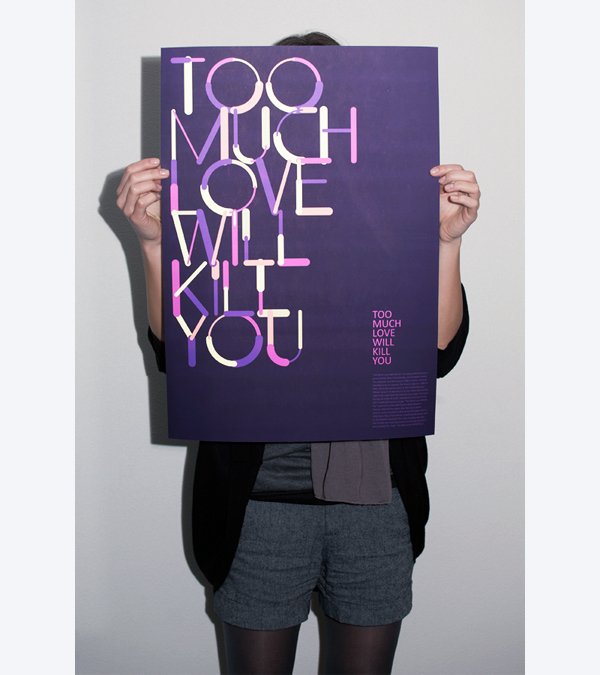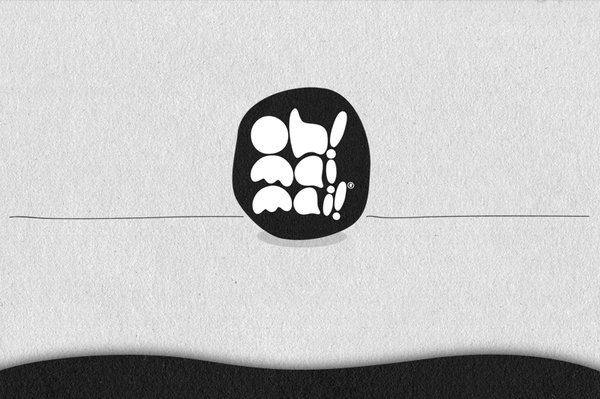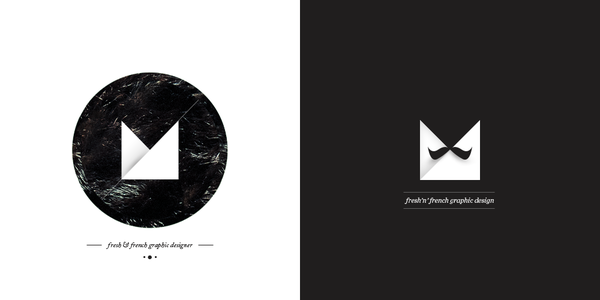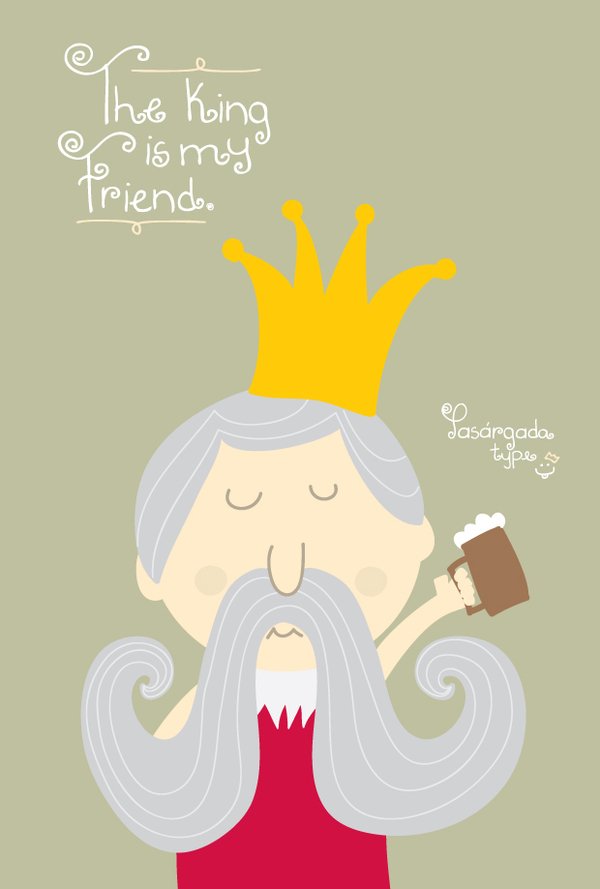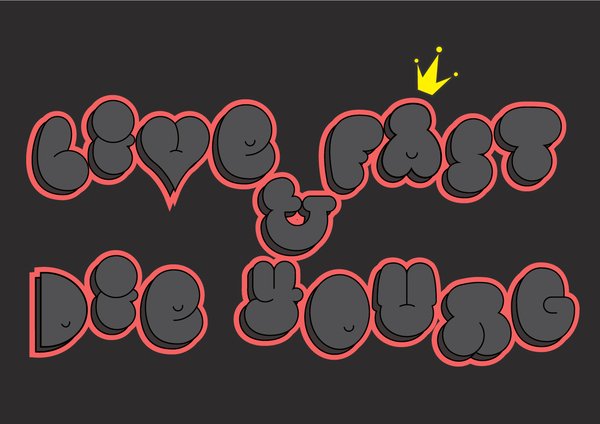
Pasárgada
Author: Pedro Reis
Description: “Pasárgada Type is a handmade eps font with stencil alternates, frames and doodles sets. The name of the font derives of a famous poem from Manuel Bandeira, a great Brazilian writer. The project was made with Marina Cota.”
Sleepy Bubbles
Author: Konrad Bednarski
Description: “This is a free vector custom typeface “inspired” by graffiti bubble letters or throw-ups.”
ORI
Author: Hendrick Rolandez
Description: “Each letter and number is created in a square area composed of 4 same square – a square of 2*2, no real dimension with very geometric shapes. The best size is 100 pixels by 100 pixels.”
Color Lines
Author: Anton Gridz
Description: Very similar font to PLSTK, that could be used in variety of cases, such as logos, labels…
Oh! Mai Mai!
Author: Jorge Artola
Description: Is a playful cartoony font, and as the author puts it, dangerously cute!